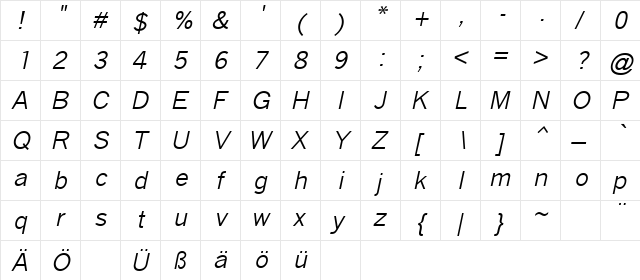
QuickType II Italic
| Foundry | Agfa Monotype Corporation |
Design Context for QuickType II Typeface
QuickType II takes a measured approach to typography — its balanced proportions and neutral character make it a reliable workhorse for both digital and print work. Its italic angle brings a sense of urgency and motion to the letterforms.
Pro Tip: Use QuickType II for emphasis, pull quotes, and subheadings where its slanted energy can add rhythm to the layout.